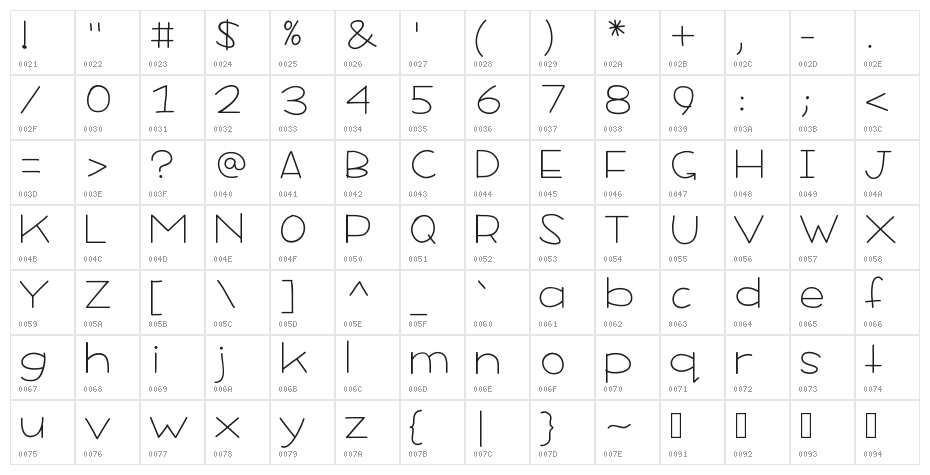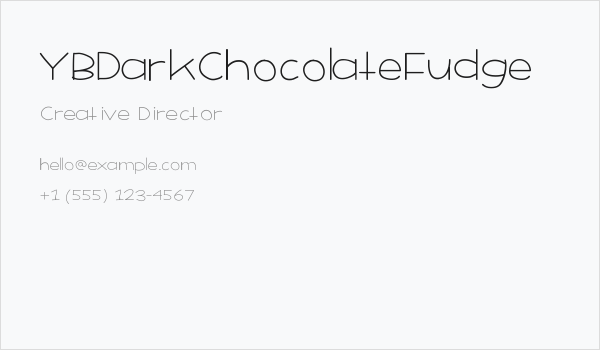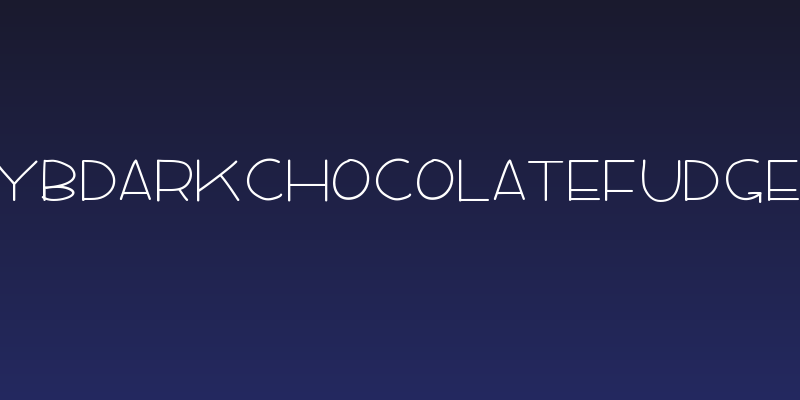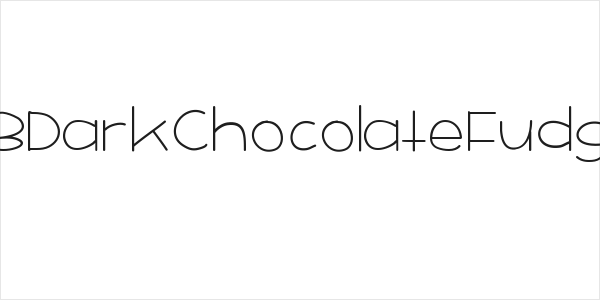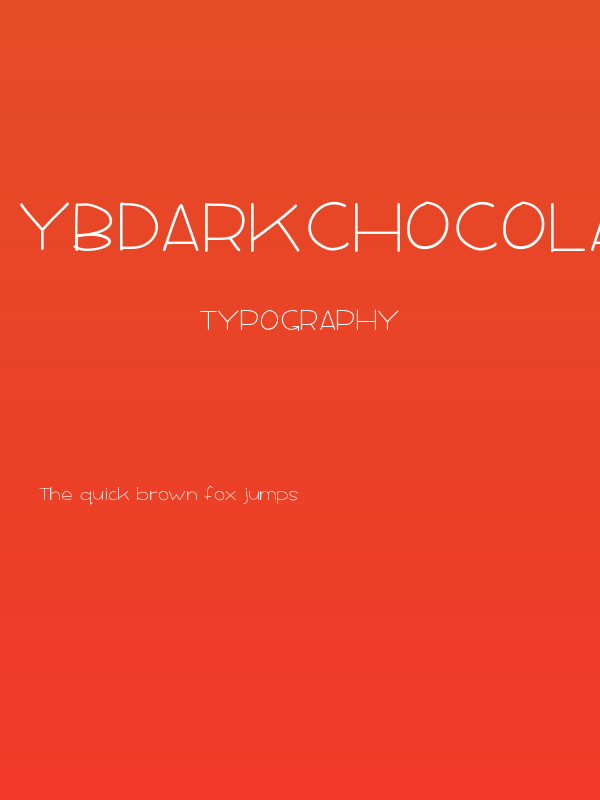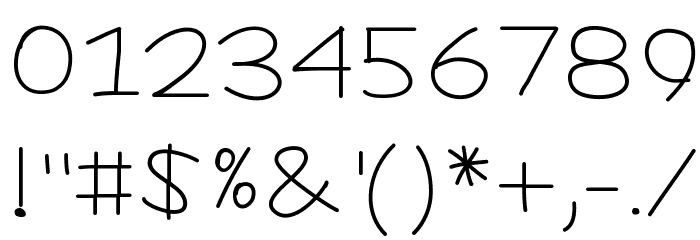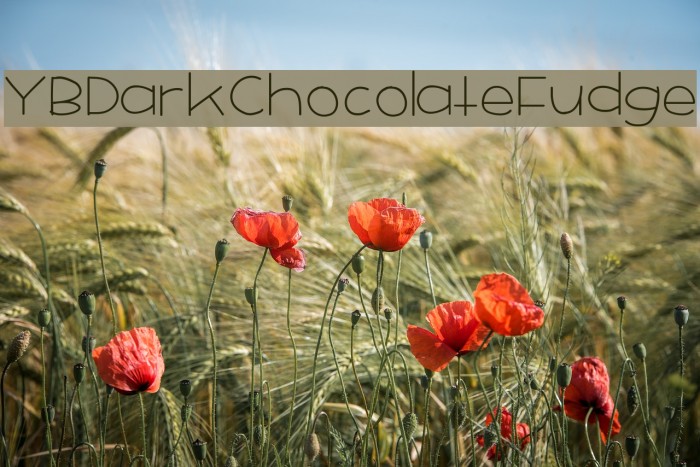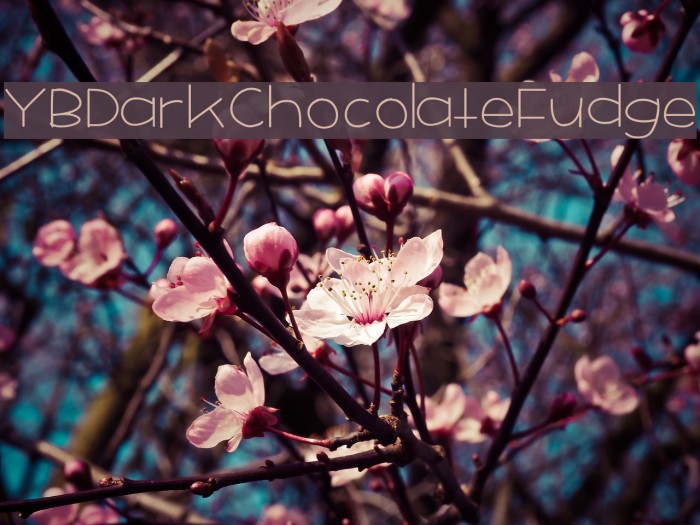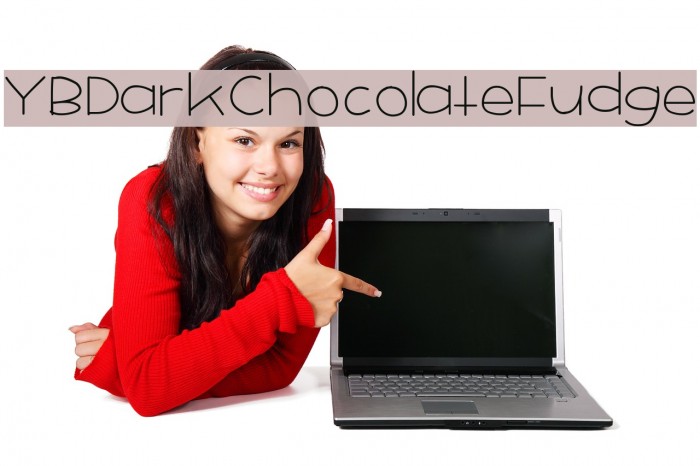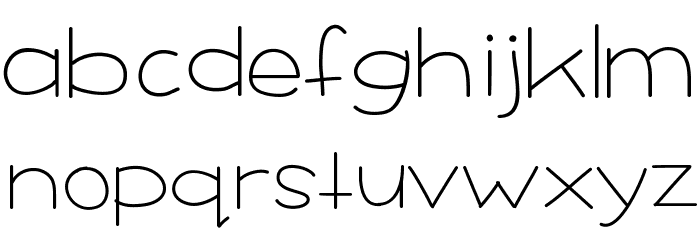
YBDarkChocolateFudge Font
YBDarkChocolateFudge Description
This font features a clean and modern design with a geometric structure. The characters are evenly spaced, offering a balanced and harmonious appearance. The uppercase letters are bold and assertive, while the lowercase letters maintain a friendly and approachable style. The numerals are clear and legible, making them suitable for various applications. Special characters are well-integrated, maintaining the overall aesthetic of the font. The thin strokes and consistent line weight contribute to its contemporary feel, making it versatile for both digital and print media.
YBDARKCHOCOLATEFUDGE UPPERCASE
YBDARKCHOCOLATEFUDGE LOWERCASE
YBDARKCHOCOLATEFUDGE OTHER CHARS